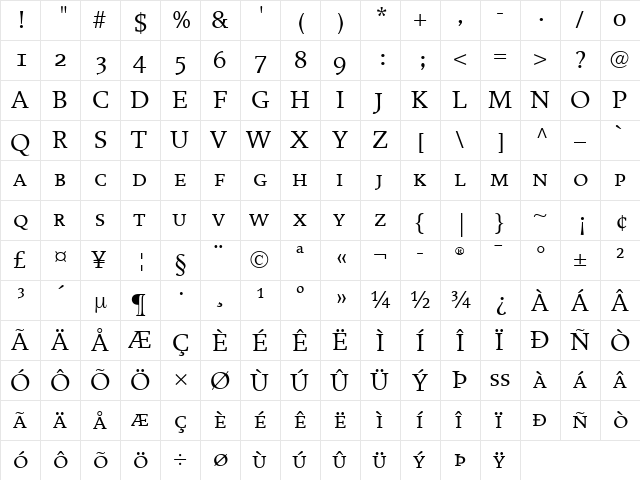
Breughel LT RegularSC Regular
Design Context for Breughel LT RegularSC Typeface
Breughel LT RegularSC offers clean, dependable letterforms without strong stylistic allegiance, making it a practical choice for designers who need flexibility. The delicate stroke weight brings airiness and refinement to layouts.